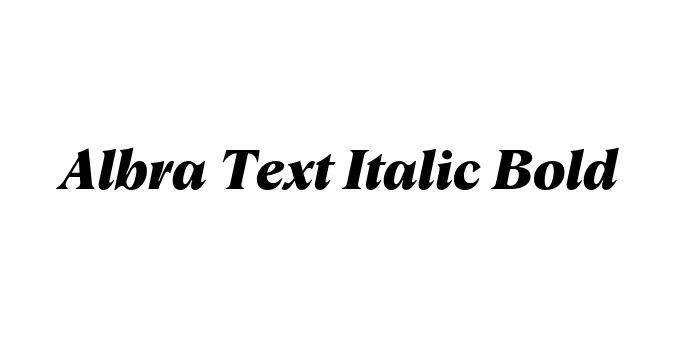
Albra Text Italic Bold
Designed by BumBumType
Albra Text Italic Bold is a sophisticated serif typeface developed by the independent foundry BumBumType. Designed to meet the rigorous demands of modern editorial environments, this font is part of the larger Albra family which is celebrated for its high-contrast strokes and elegant, timeless aesthetic. The Bold Italic weight specifically introduces a dynamic, calligraphic rhythm to the page, balancing traditional Renaissance influences with contemporary digital precision.
This typeface is engineered for maximum legibility in body copy while retaining enough character to function as a display face in smaller headings. Its generous x-height and refined terminals ensure that the text remains sharp and authoritative across both high-resolution print and screen displays. Albra Text has become a preferred choice for designers who require a font that communicates luxury, intellectual depth, and professional reliability.
Albra Text Italic Bold Best Uses
Perfect for long-form articles in magazines and literary journals.
Ideal for high-end fashion labels and sophisticated identity systems.
Excellent for book interiors and high-quality brochures.
Adds a premium feel to online blogs and creative portfolios.